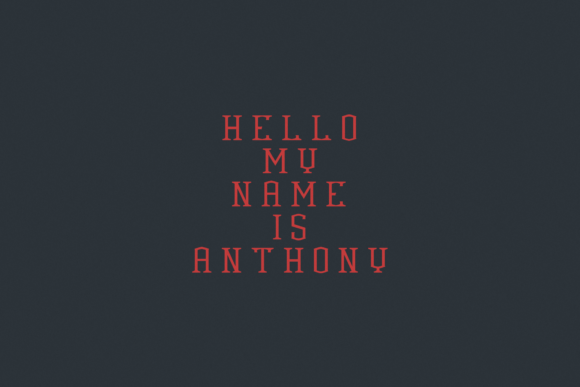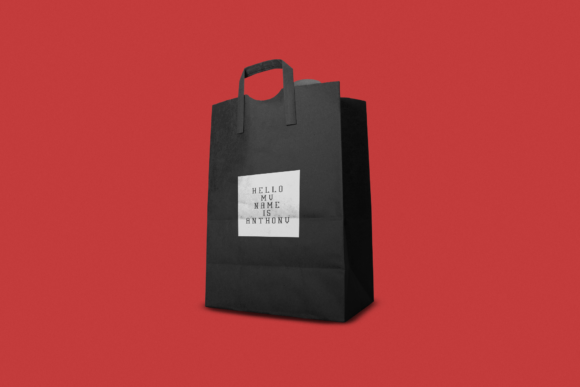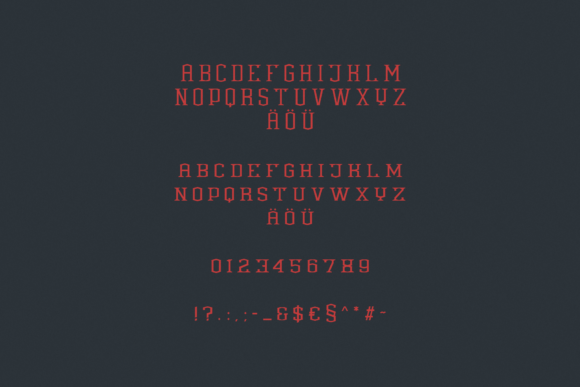
The Anthony Font: A Refreshing Serif for Modern Design
I’ll never forget the struggle I faced while working on a streetwear-inspired apparel project. My client wanted a font that was both stylish and legible, but I was coming up blank. That’s when I stumbled upon the Anthony font, a serif font that perfectly captured the essence of streetwear fashion culture. In this article, I’ll share my experience with Anthony, its features, and how to make the most of it in your designs.
An Honest Review of Anthony Font
- ✨ Unique blend of serif and streetwear style: Anthony font brings a refreshing twist to traditional serif fonts, making it perfect for designers looking for something new.
- ✅ Excellent legibility: The font’s clear and crisp lines ensure that it remains readable even at smaller sizes.
- 💡 Versatile: Anthony font works well in both print and digital formats, making it a great addition to your font library.
While Anthony font is amazing, it’s not perfect. Here are a few things to keep in mind:
- 🤔 Limited use of uppercase letters: Some designers might find that the font’s uppercase letters are not as stylized as they would like.
- ⚠️ Not suitable for body text: Due to its stylized nature, Anthony font is best used for headlines, titles, or short paragraphs.
- Experiment with OpenType features, such as Stylistic Alternates, to add more personality to your text.
- Access OpenType features, such as Glyphs and Stylistic Sets, to customize your text.
The Designer Inspiration Behind Anthony Font
The creator of Anthony font was inspired by the streetwear fashion culture of the 2010s. They wanted to design a font that captured the essence of urban style, while still being legible and versatile. The result is a font that’s perfect for designers who want to add a touch of streetwear flair to their work.
Q: What is Anthony font best used for?
A: Anthony font is best used for headlines, titles, and short paragraphs in print and digital formats.
Q: Is Anthony font suitable for body text?
A: No, Anthony font is not recommended for body text due to its stylized nature.